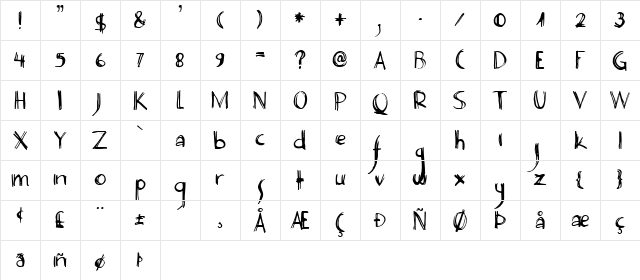
Deco Pimp Regular
Foundry: David Kerkhoff
Designer: David Kerkhoff
Design Context for Deco Pimp
Deco Pimp is a composed and adaptable typeface that performs quietly and consistently across a wide range of design contexts.